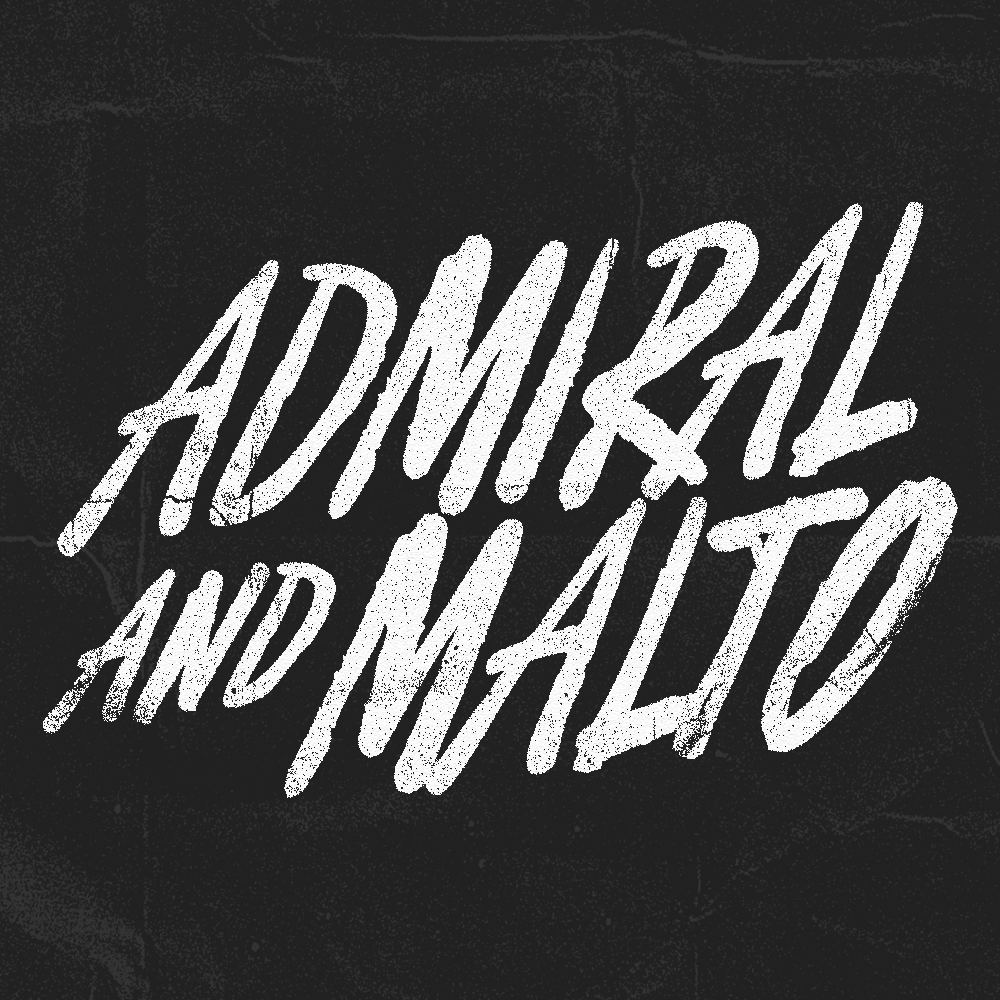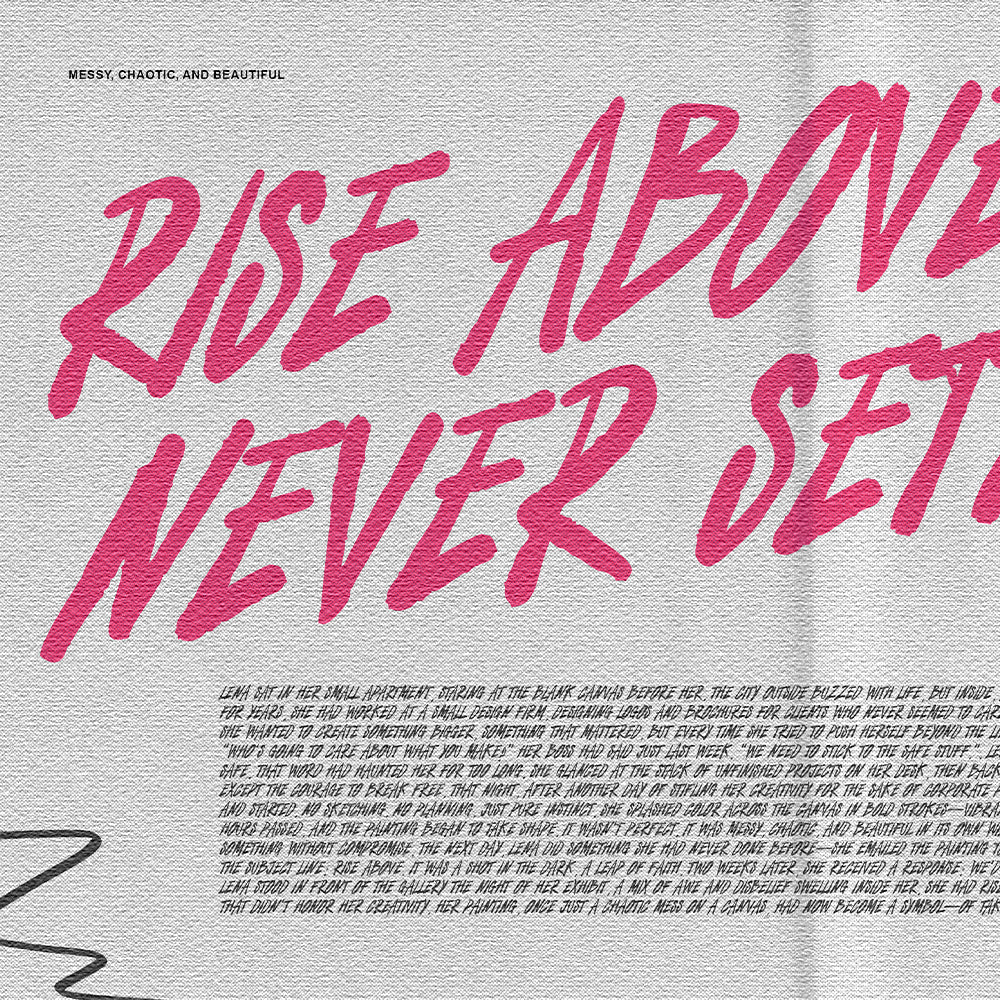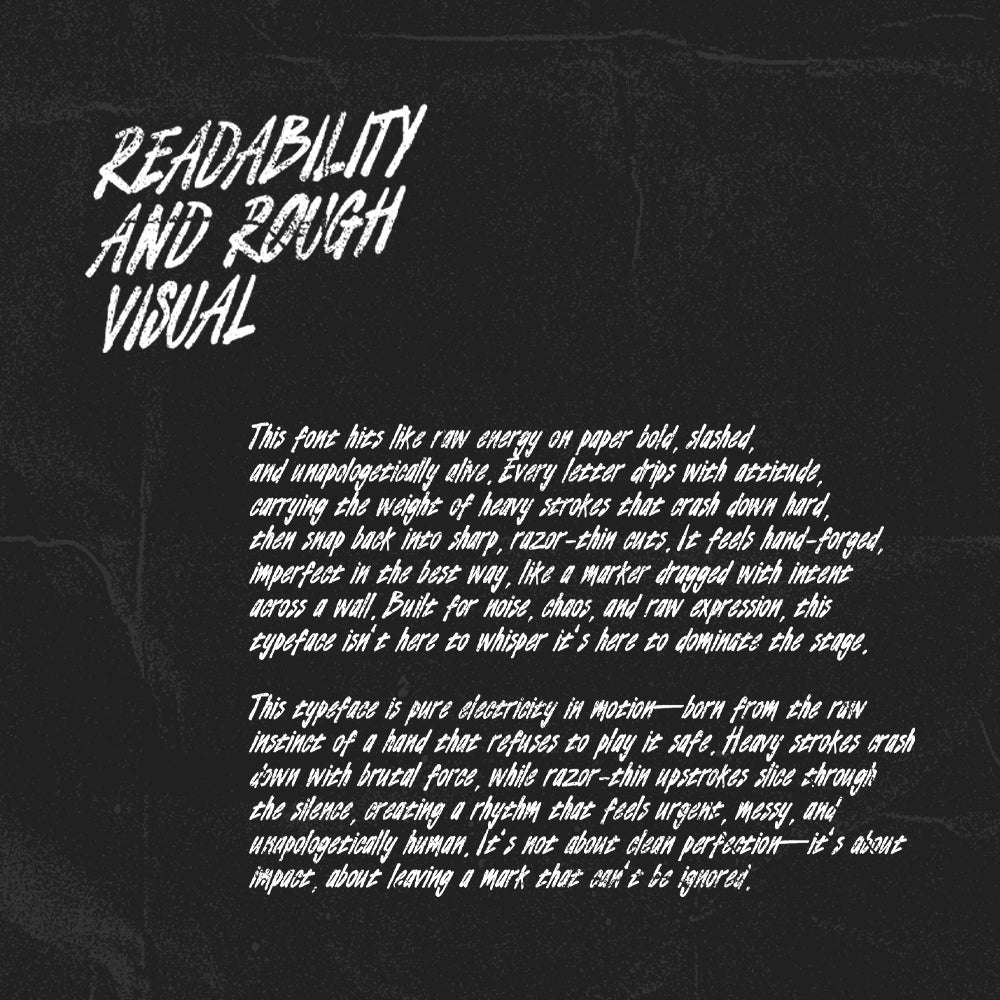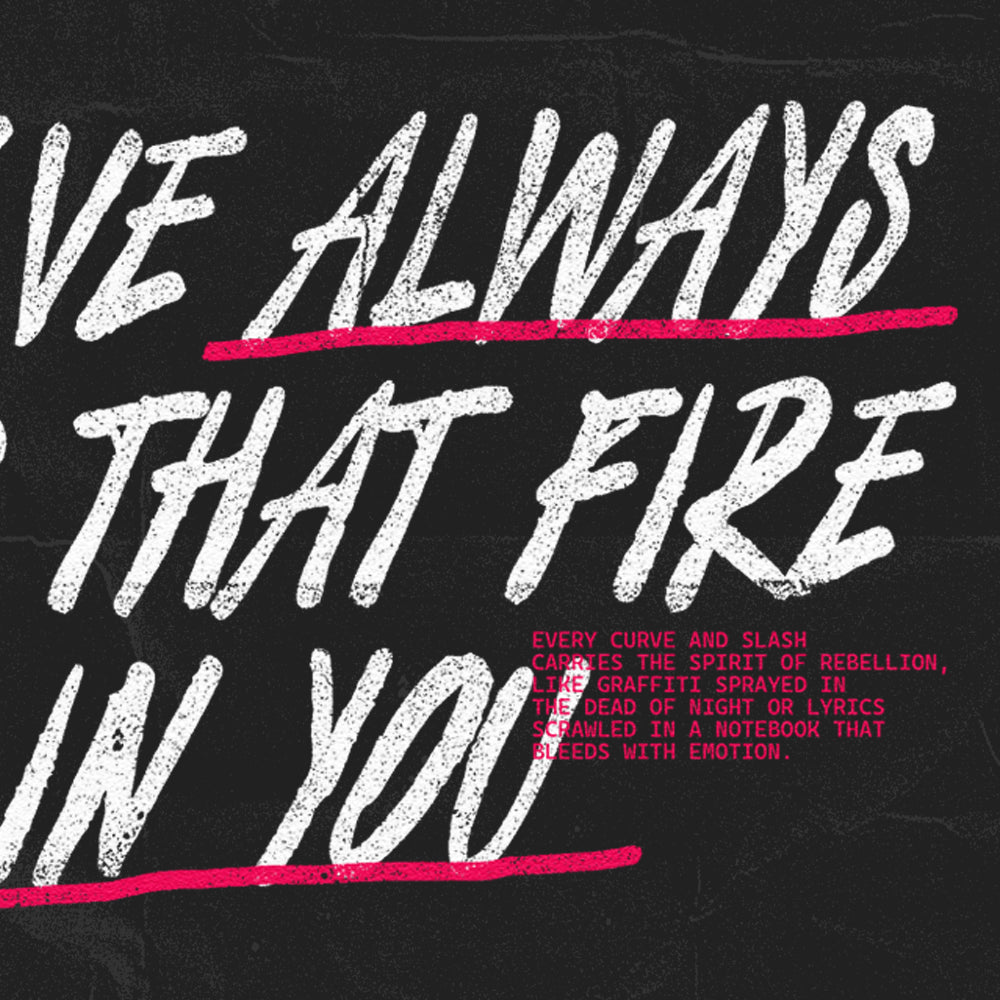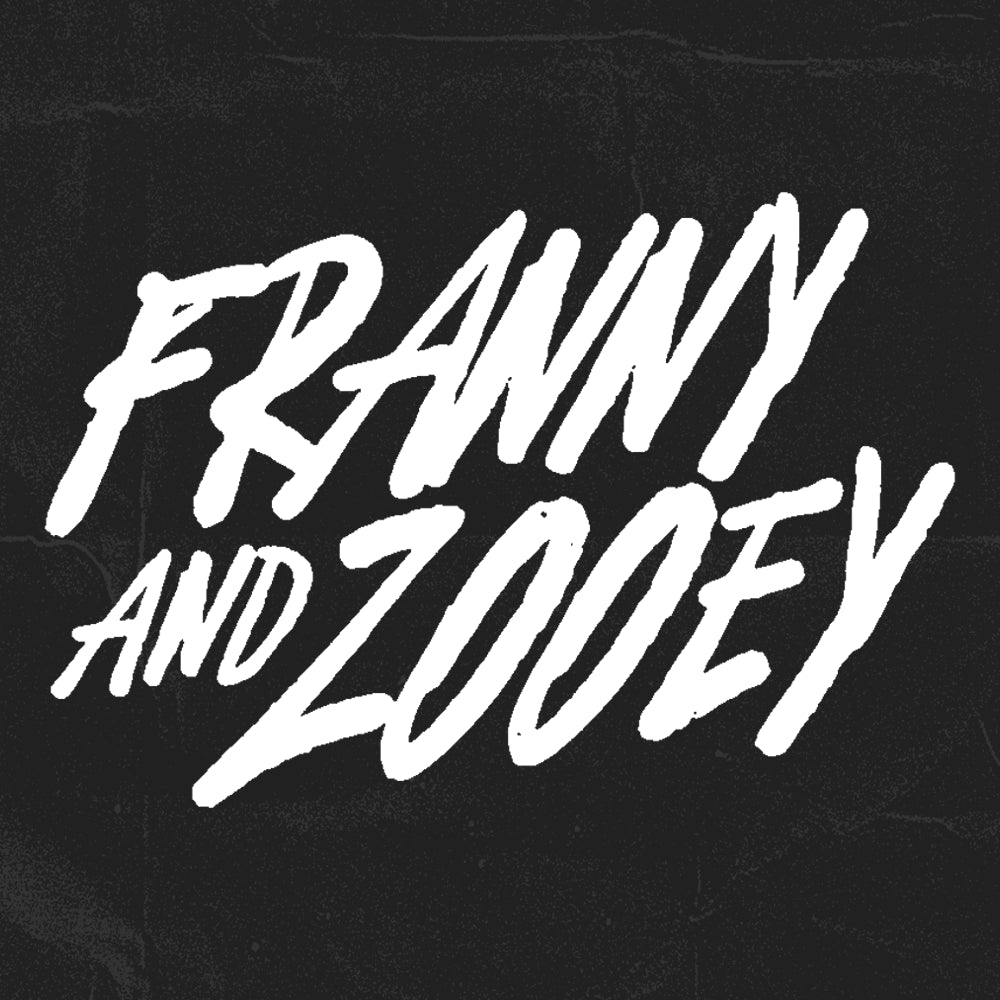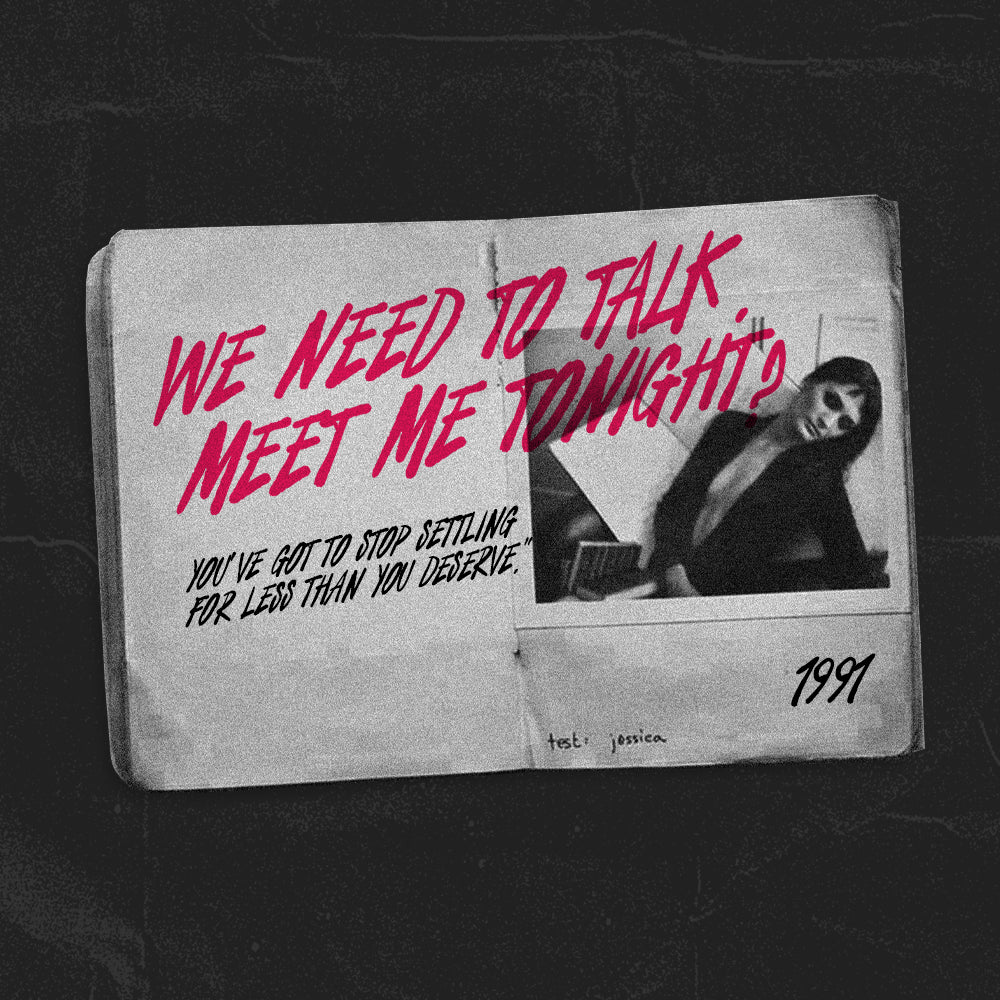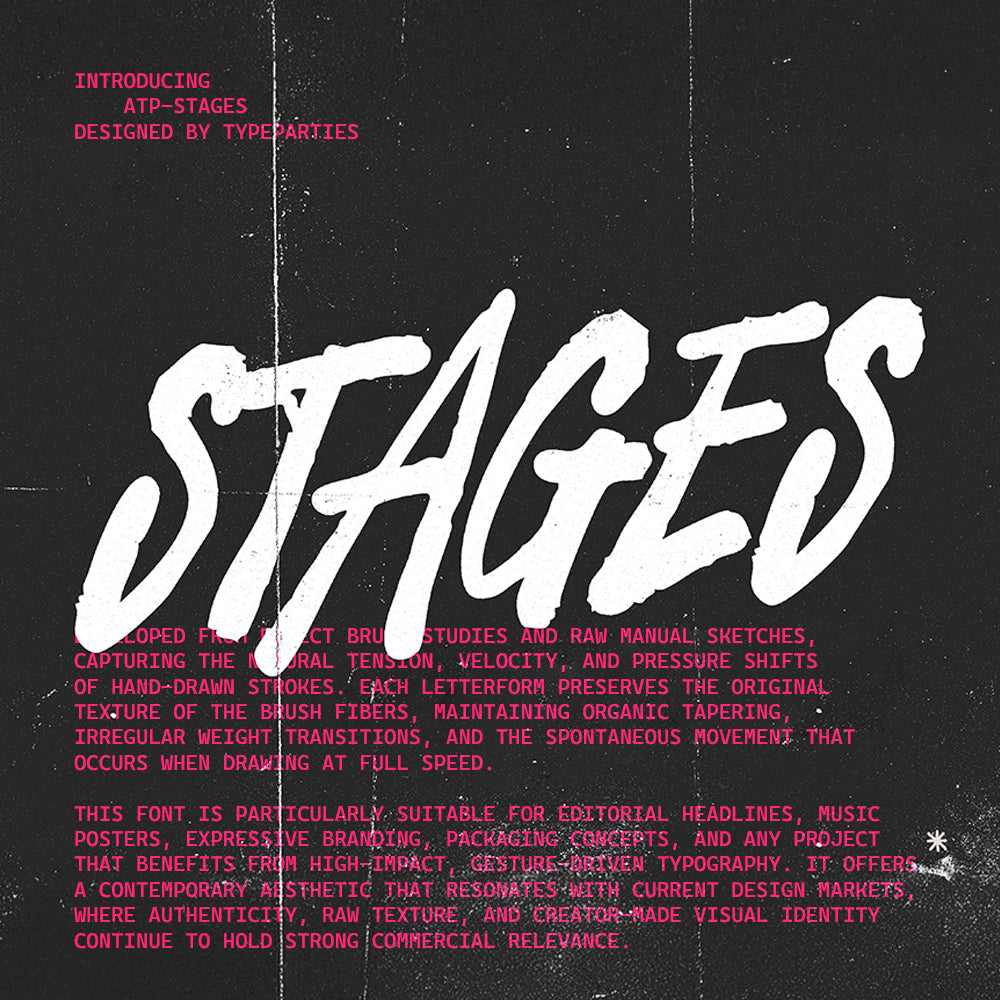
Stages - Handwritten Brush Fonts
Stages was developed from direct brush studies and raw manual sketches, capturing the natural tension, velocity, and pressure shifts of hand-drawn strokes. Each letterform preserves the original texture of the brush fibers, maintaining organic tapering, irregular weight transitions, and the spontaneous movement that occurs when drawing at full speed.
As a creator, the goal was to translate the energy of real analog mark-making into a digital system that still feels human. The forms were intentionally refined only to the extent that they remained functional and legible, while the expressive qualities of the initial sketches were kept intact. This balance allows the typeface to work as both an artistic display tool and a practical asset for designers who want a tactile, handcrafted presence in their compositions.
This font is particularly suitable for editorial headlines, music posters, expressive branding, packaging concepts, and any project that benefits from high-impact, gesture-driven typography. It offers a contemporary aesthetic that resonates with current design markets, where authenticity, raw texture, and creator-made visual identity continue to hold strong commercial relevance.
Stages - Handwritten Brush Fonts is a typeface developed from brush studies and manual sketches, featuring authentic hand-drawn strokes with natural texture and irregular weight transitions. It includes uppercase and lowercase letters, numerics, punctuation, and multilingual support, available in both .otf and .ttf formats.